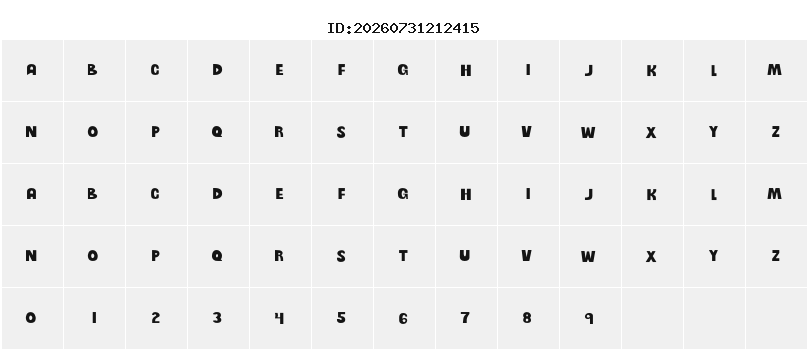
• Font Name: Lazy Summer
• Designer: Alex Tomlinson
• Manufacturer: Skyhaven Fonts
• Description: Handwritten AND LARGE! International characters may be available upon request.
Lazy Summer.otf is a modern, elegant sans-serif font designed for ultimate readability and visual harmony. Perfect for branding, headlines, web design, and print materials.